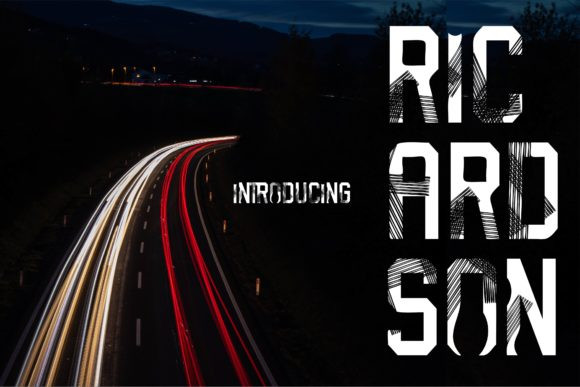
Richardson Font
Richardson is a cute and modern display font with an incredibly friendly feel. Whether you’re looking for fonts for Instagram or calligraphy scripts for DIY projects, this font will turn any creative idea into a true piece of art!